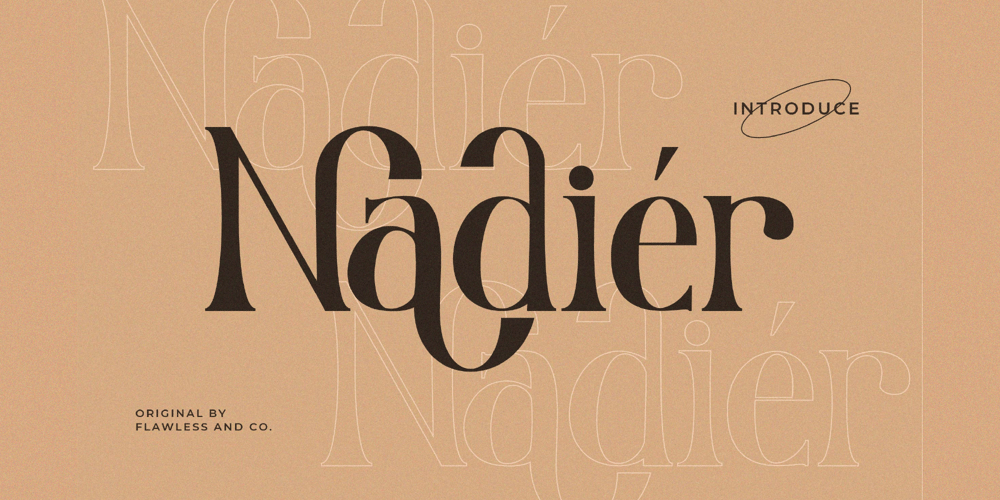
Nadier Font Family was designed by Achmad Yani and published by Flawlessandco. Nadier contains 1 styles and family package options. Nadier is a Modern Serif Font that made with a classic style in each character, so it’s fitted for some wedding invitation display.There’s some connected letters and some alternates that suitable for any graphic designs such as branding materials, t-shirt, print, business cards, logo, poster, t-shirt, photography, quotes .etcThis font support for some multilingual. Also contains uppercase A-Z and lowercase a-z, alternate character, numbers 0-9, and some punctuation.If you need help, just write me! Thanks so much for checking out my shop!